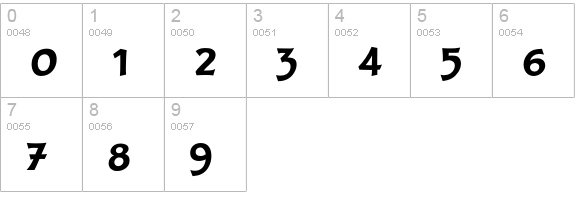
Clair-Bold Font Details
Clair-Bold is a strong, high-contrast variant in the Clair typeface family \xE2\x80\x94 well suited to headlines, attention-grabbing titles, and strong calls-to-action.